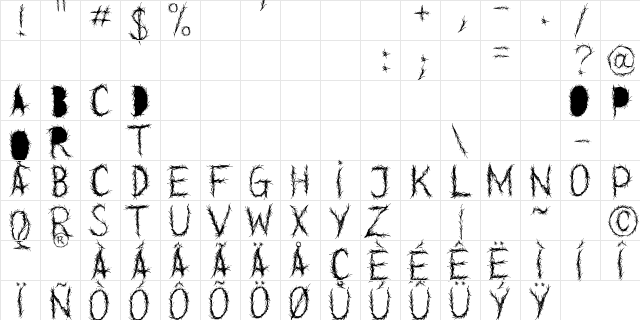
Grey World Demo Regular Free Font
Grey World Demo Regular
Designer: Le Thi Thu Huong
Design Context for Grey World Demo
Grey World Demo is a composed and adaptable typeface that performs quietly and consistently across a wide range of design contexts.